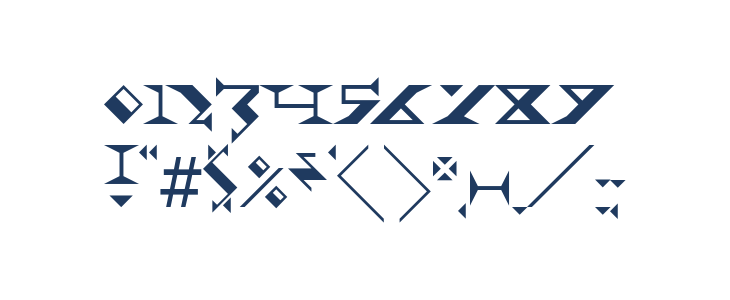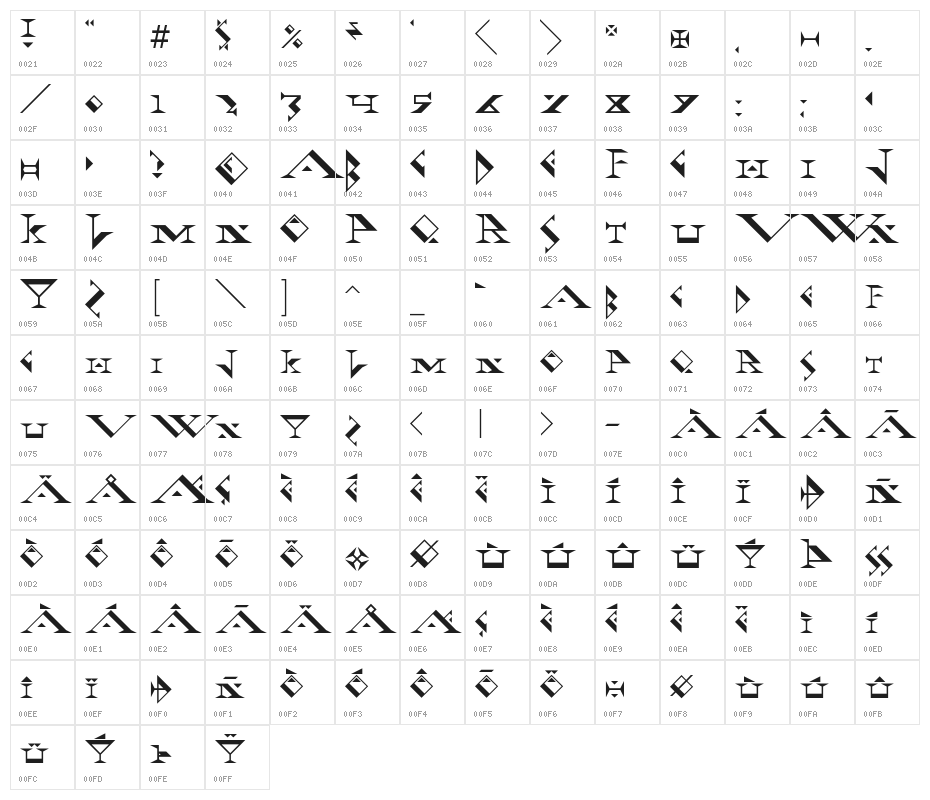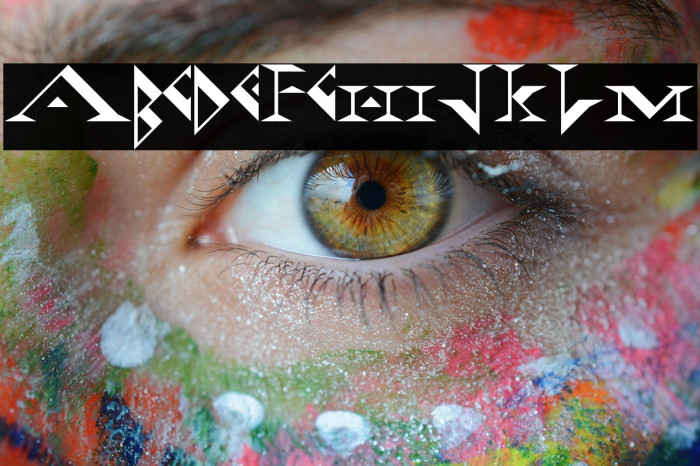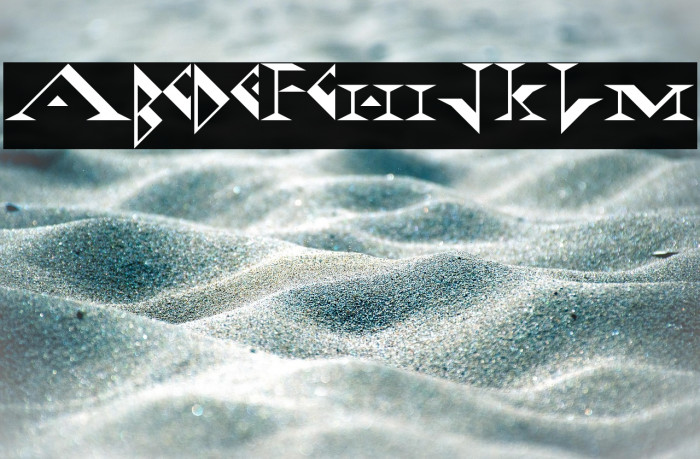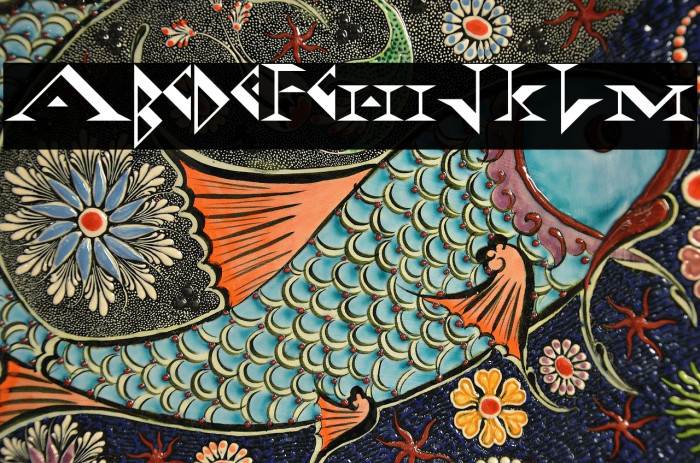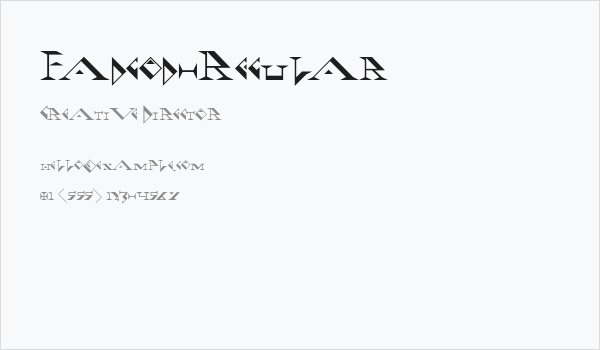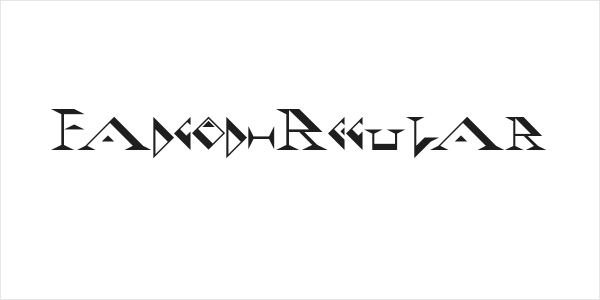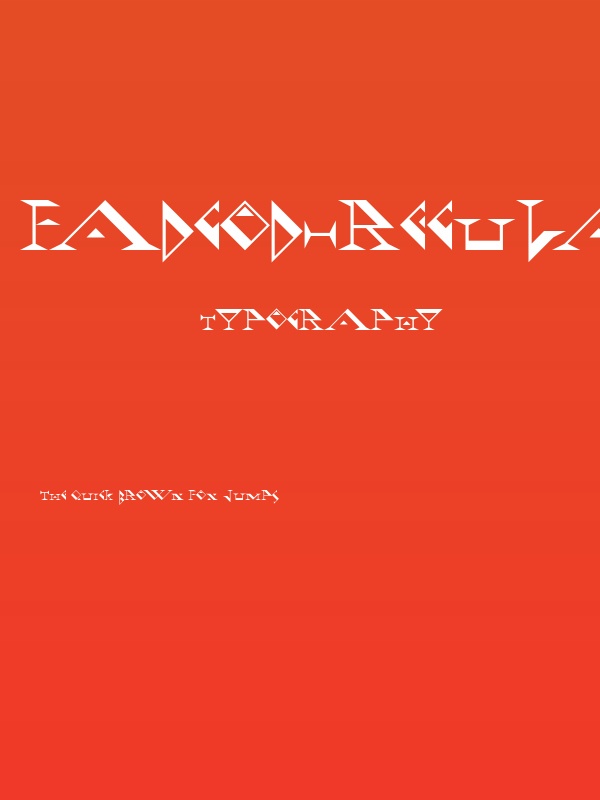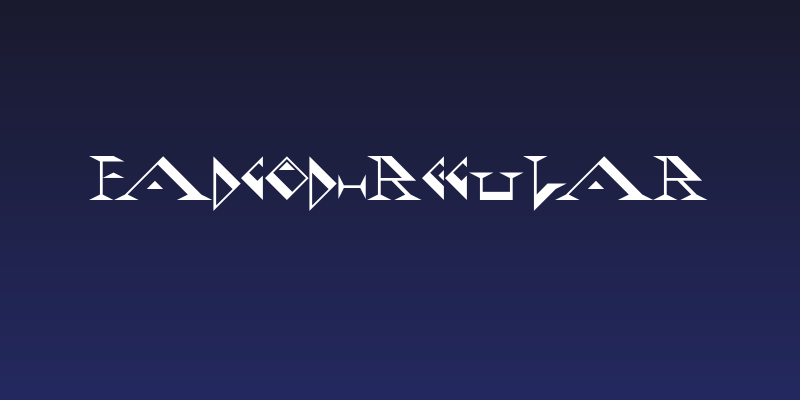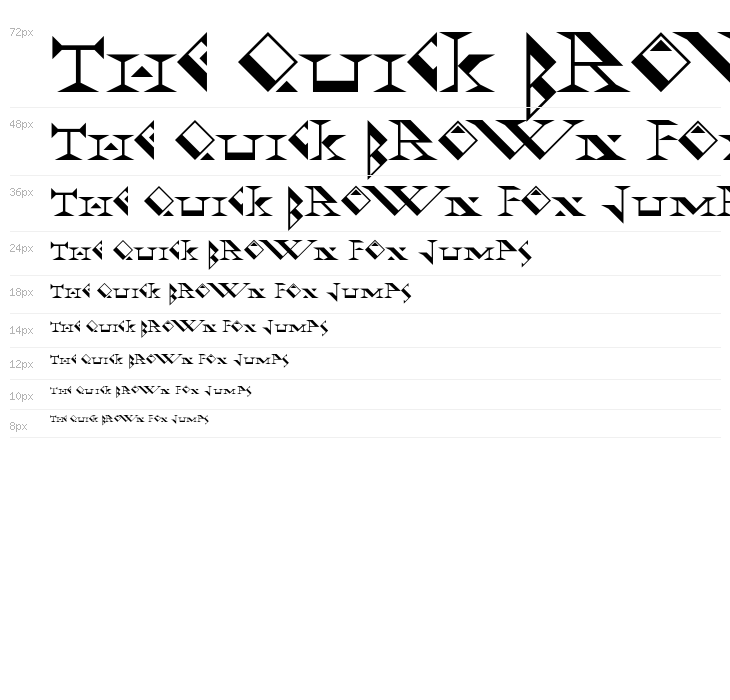
Fadgod-Regular Font
Fadgod-Regular Description
This font features a bold and geometric design, characterized by sharp angles and a futuristic aesthetic. The letters are constructed with a series of triangular and angular shapes, giving it a highly stylized and modern look. The uppercase and lowercase letters maintain a consistent design theme, with each character exhibiting unique cuts and edges that create a dynamic visual impact. The numerals and special characters follow the same design principles, ensuring uniformity across the font. This typeface is ideal for projects that require a strong, avant-garde presence.
| Overall Style | Futuristic, Modern |
| Proposed Projects | Ideal for sci-fi themed designs, video game titles, posters, and branding that requires a modern edge. |